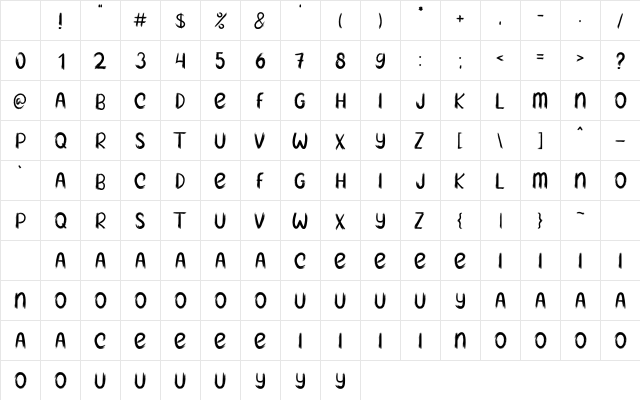
Complete Blue Paint Regular glyph index. Displaying only characters natively supported by Blue Paint Regular font.
Blue Paint is a composed and adaptable typeface that performs quietly and consistently across a wide range of design contexts.